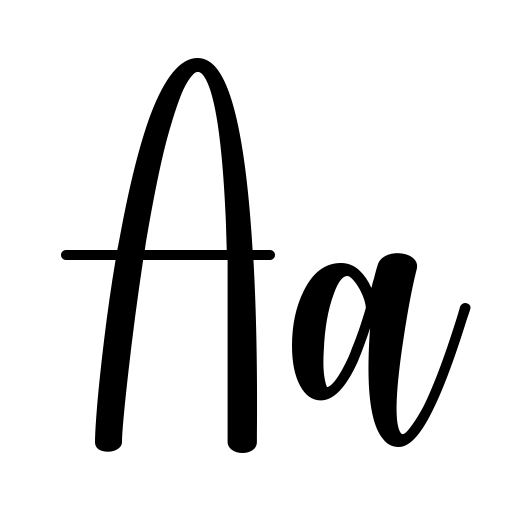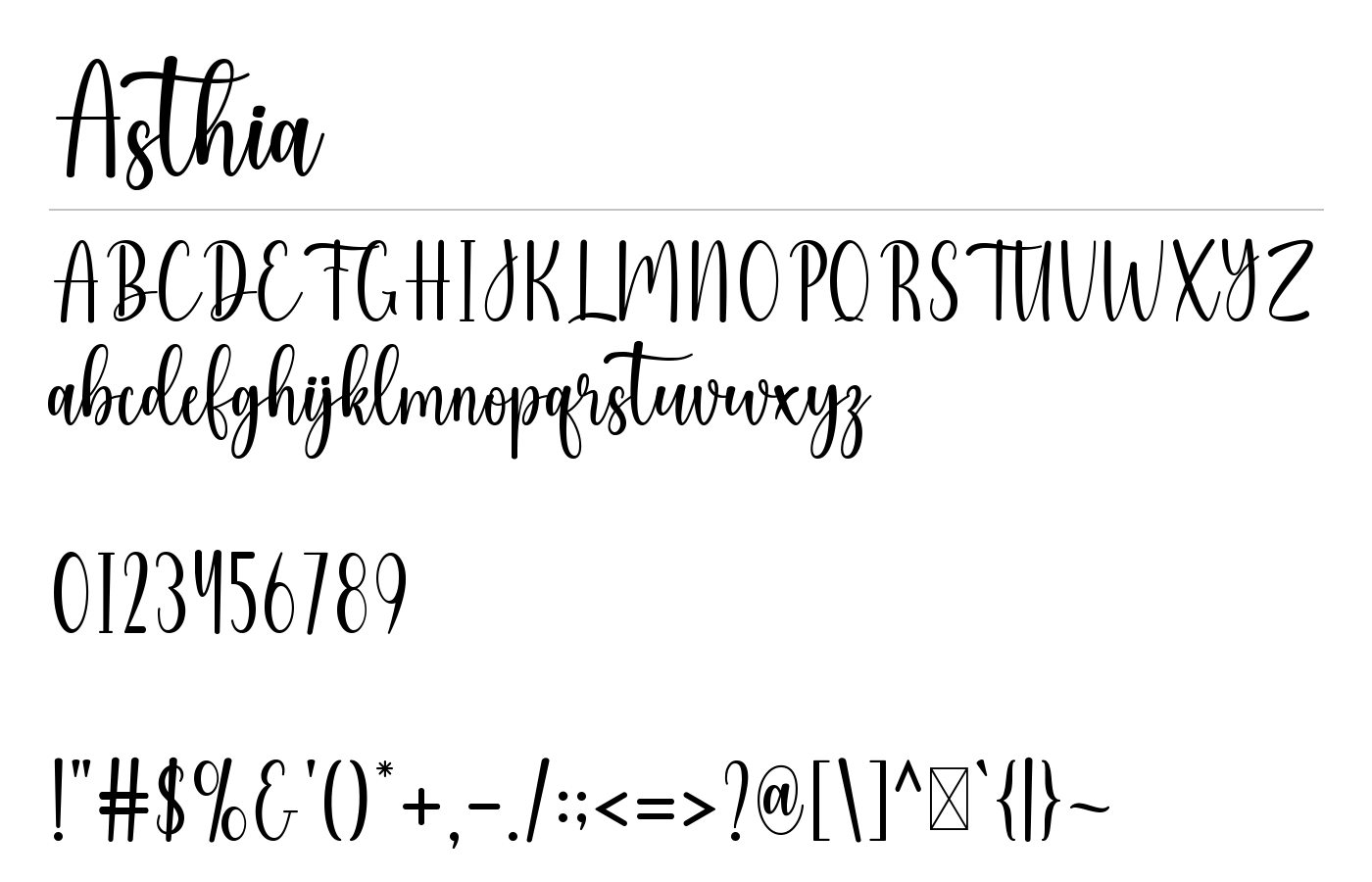
Asthia is a charming script font with a playful yet elegant character, featuring tall, slender letterforms and smooth, flowing strokes. Its well-balanced mix of casual and refined elements makes it perfect for creative projects, invitations, fashion branding, and headlines where a friendly but polished look is desired. This font’s clear legibility and graceful style bring a warm, approachable feel to any design.
Asthia Font
About Asthia Font
| Font family | Asthia Font |
| Designer | Wahyu Setiyawan |